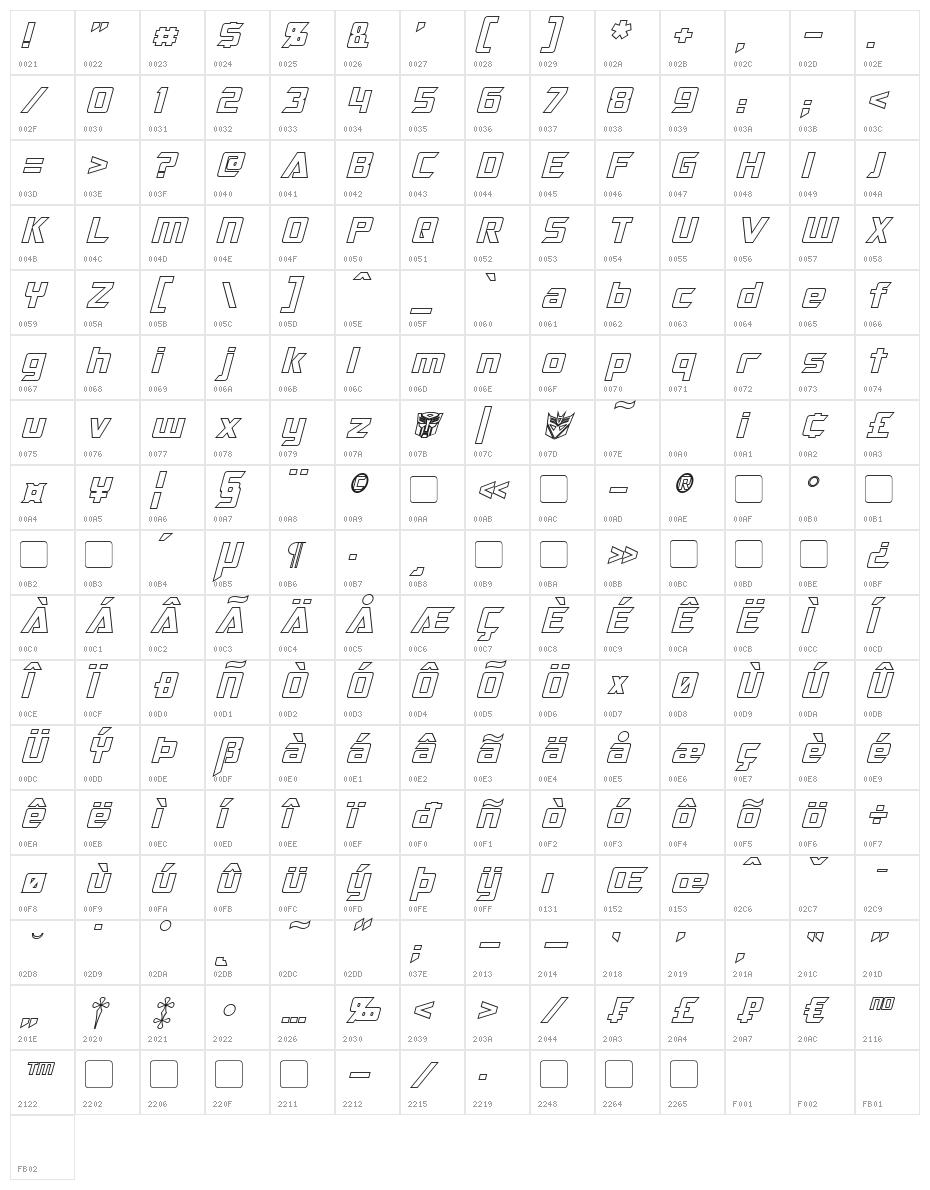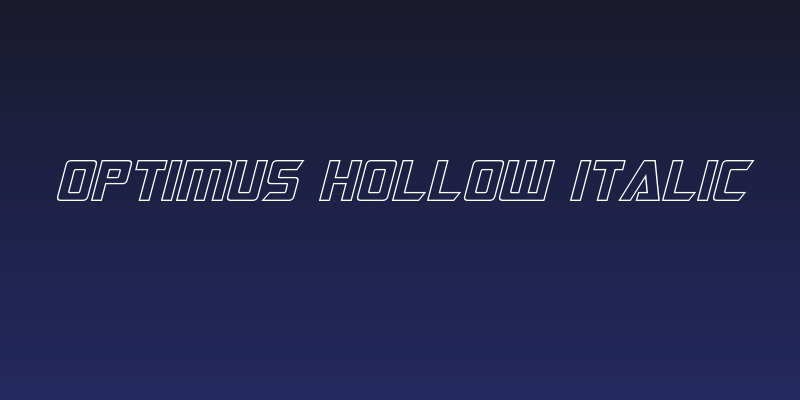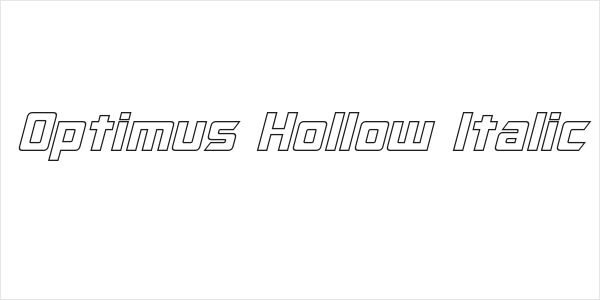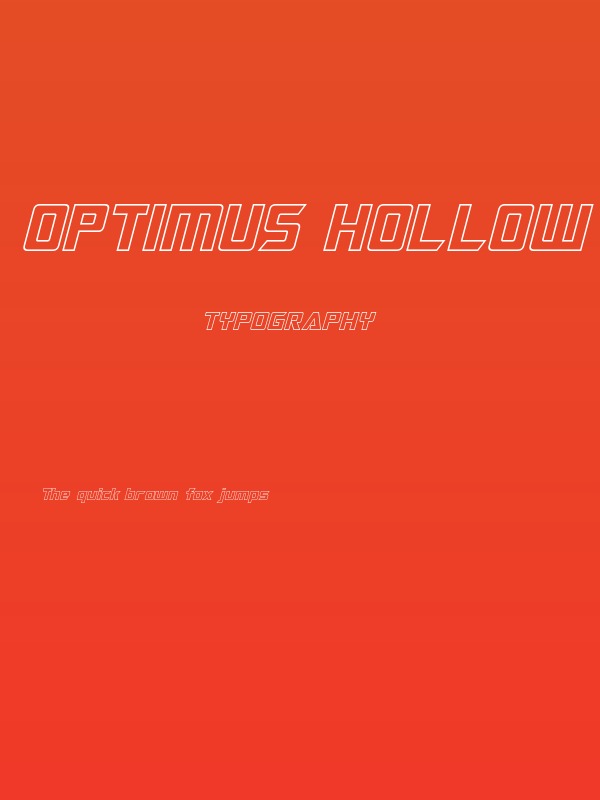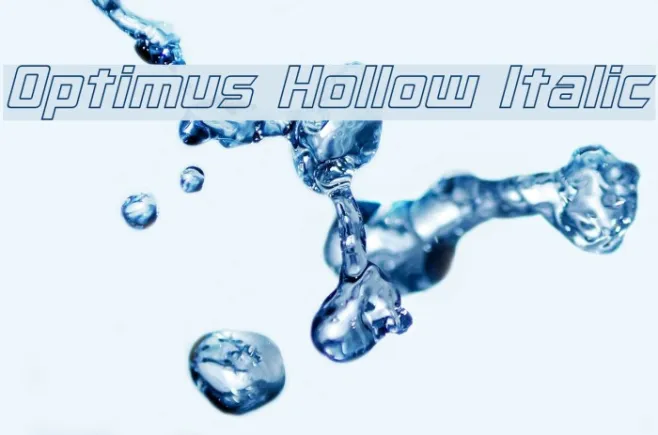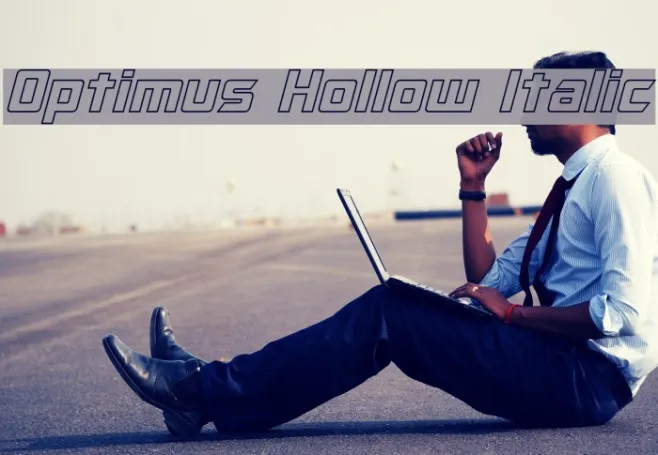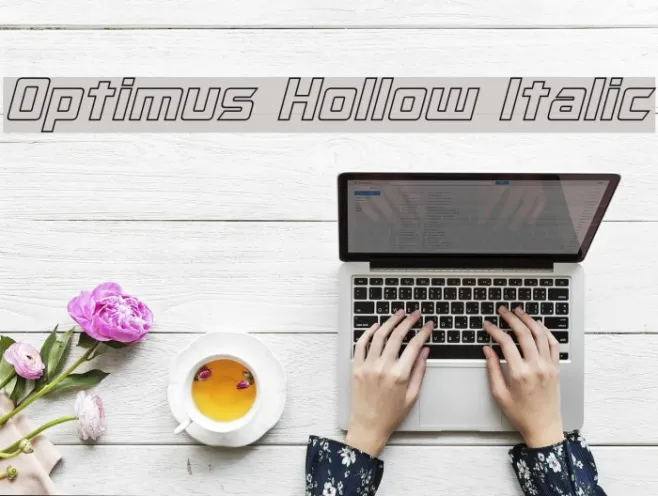
Optimus Hollow Italic Font
Optimus Hollow Italic Description
This font features a modern, geometric design with a hollow, outlined style that gives it a futuristic and dynamic appearance. The italic slant adds a sense of motion and speed, making it ideal for projects that require a contemporary and energetic look. The uppercase and lowercase letters maintain a consistent structure, with sharp angles and clean lines. The numerals and special characters follow the same stylistic approach, ensuring uniformity across all elements. This font is perfect for creating eye-catching headlines, logos, and branding materials that need a bold and distinctive presence.
| Proposed Projects | Ideal for futuristic branding, tech-related designs, sports team logos, and dynamic advertising campaigns. |